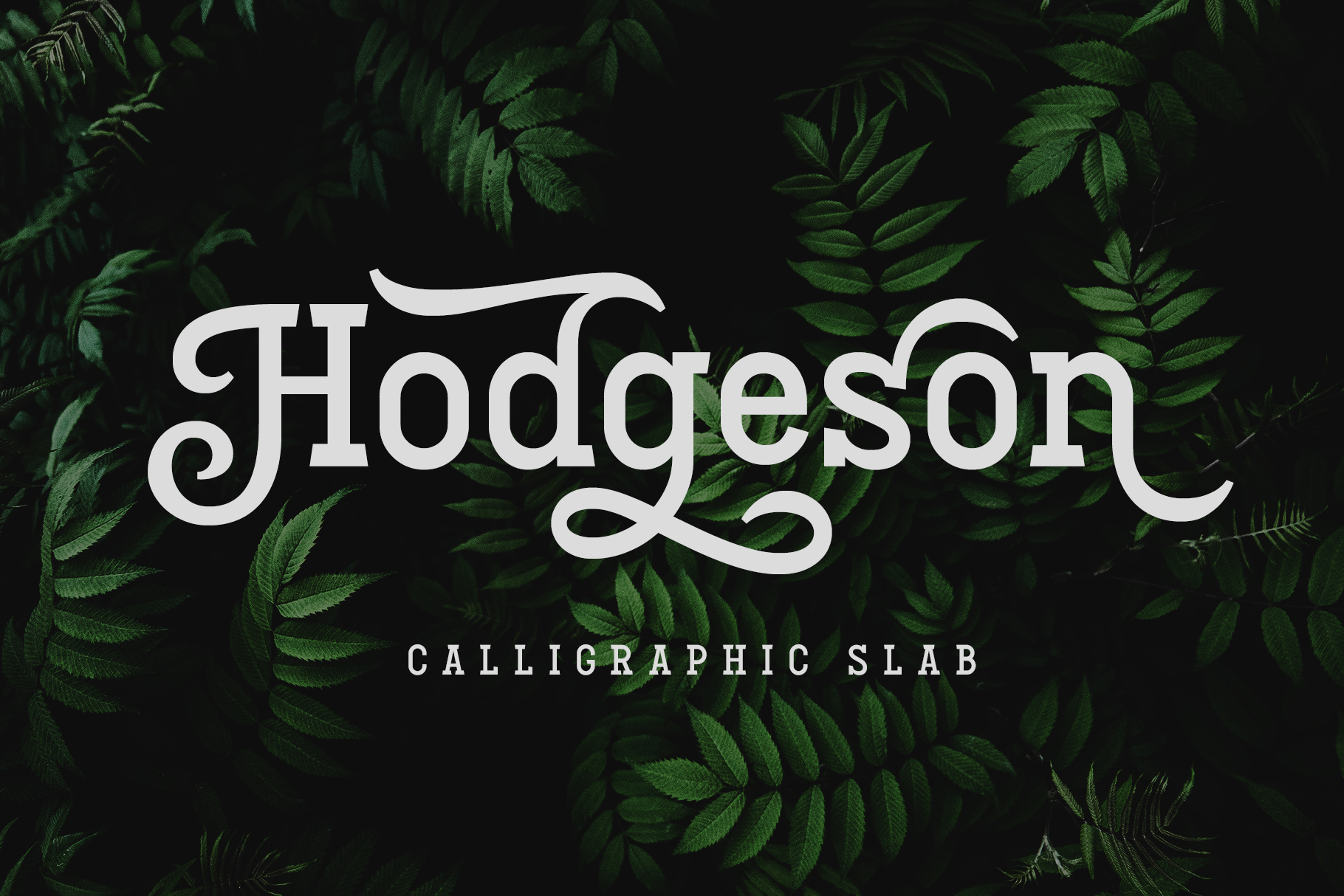
Hodgeson Font
About Hodgeson
Hodgeson is a calligraphic slab serif font, which made with combinations of custom lettering and Egyptian style. Available in 4 styles that you can use it for many purposes, as a combination or split according to the design styles. Complete with OpenType features, that allows you to give more calligraphic looks! There are Normal, Italic, Shadow and Round style.